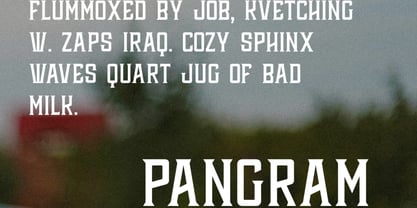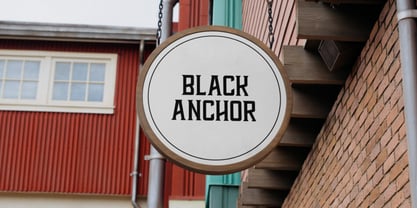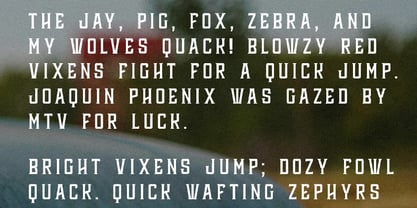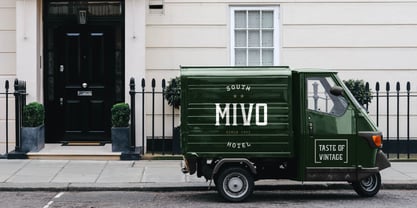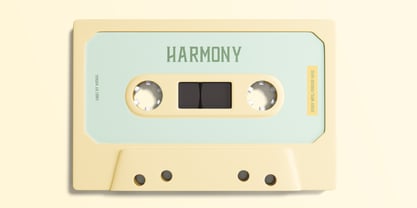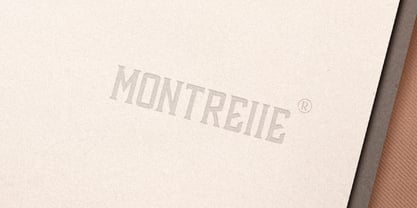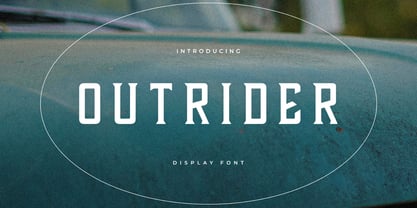
Outrider
by Webhance
The Outrider Font Family was designed by Alwin Johnson, Ancy George and published by Webhance. Outrider contains 2 styles and family package options.
Outrider is a bold display slab serif typeface inspired by the rugged spirit of the frontier and the timeless charm of handcrafted lettering. With its strong vertical forms, sharp serifs, and geometric precision, Outrider blends industrial strength with modern sophistication. perfect for logos, posters, packaging, and branding that demand confidence and character. Designed to evoke the grit and determination of vintage Americana, Outrider captures the essence of western heritage while maintaining a clean, contemporary look. Its carefully balanced proportions and striking letterforms make it ideal for outdoor branding, apparel design, film titles, or any project seeking bold authenticity. Whether you’re designing adventure-inspired branding, crafting modern vintage posters, or developing bold editorial layouts, Outrider stands as a testament to strength, legacy, and modern craftsmanship.
Designers: Alwin Johnson, Ancy George
Publisher: Webhance
Foundry: Webhance
Design Owner: Webhance